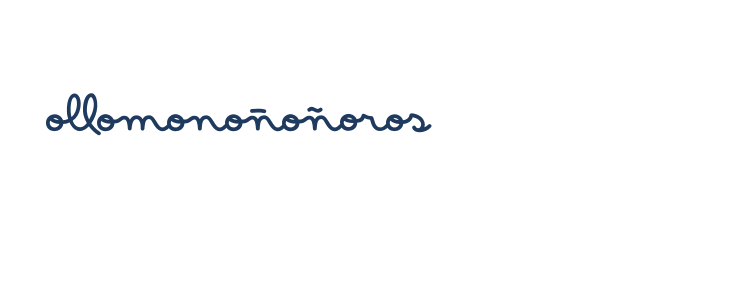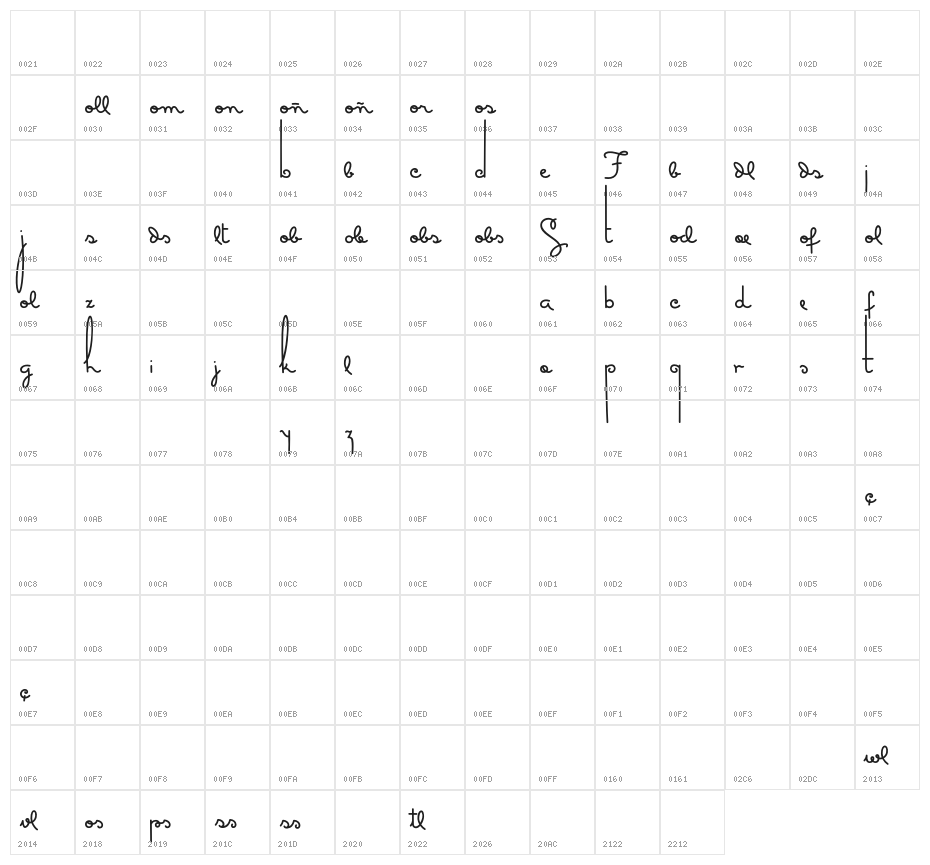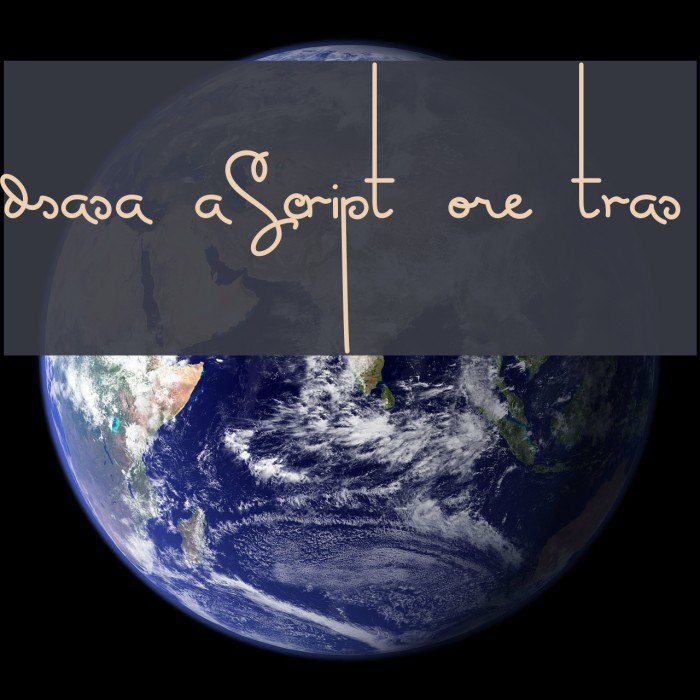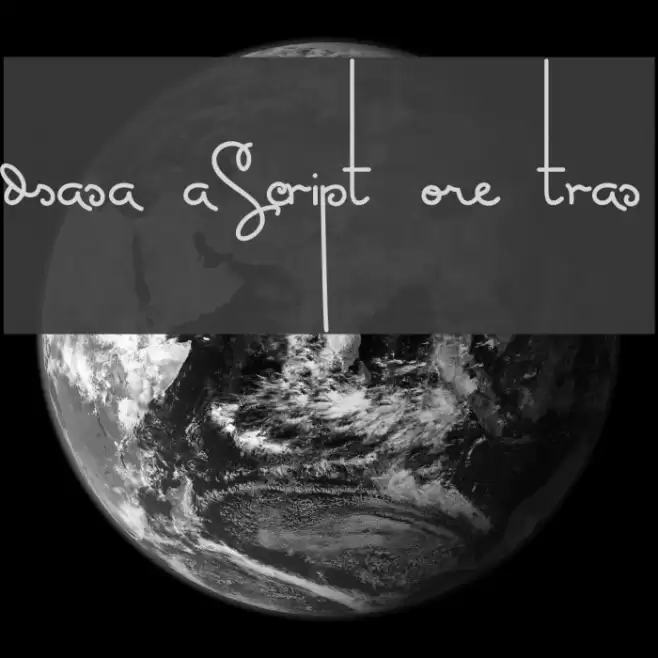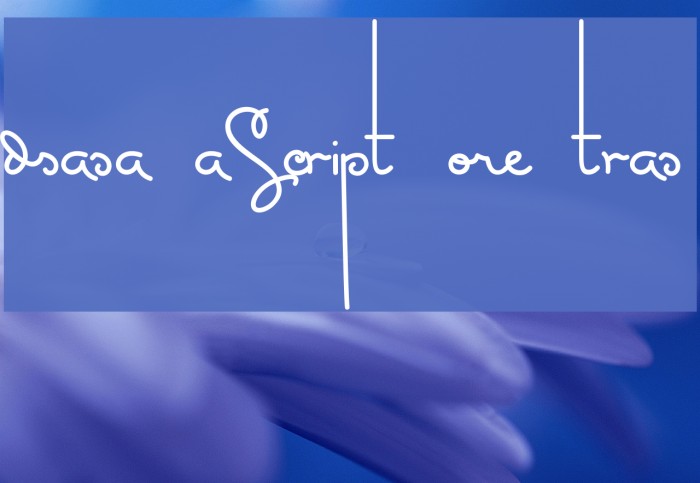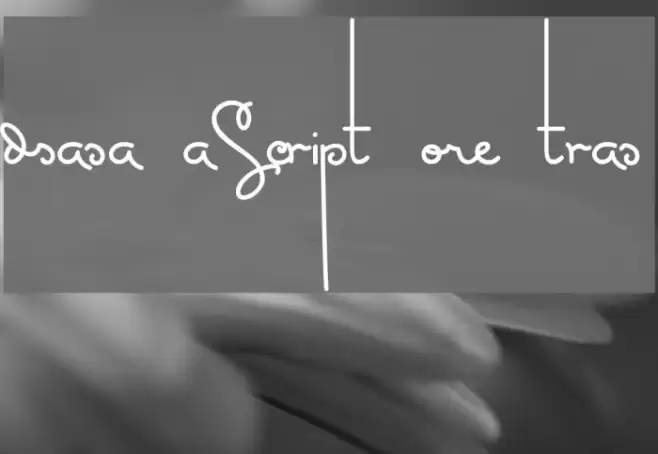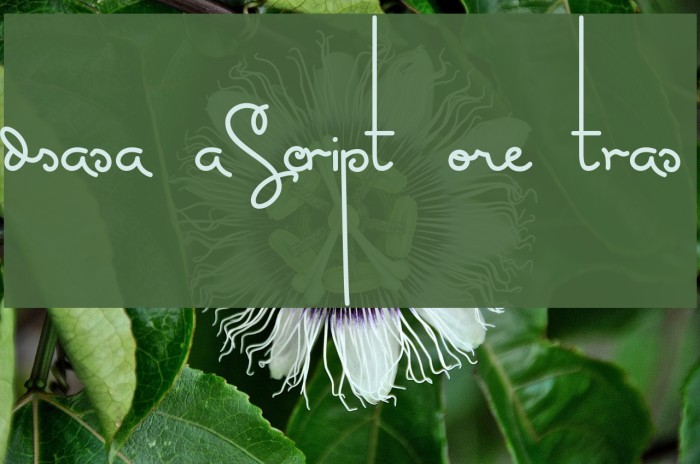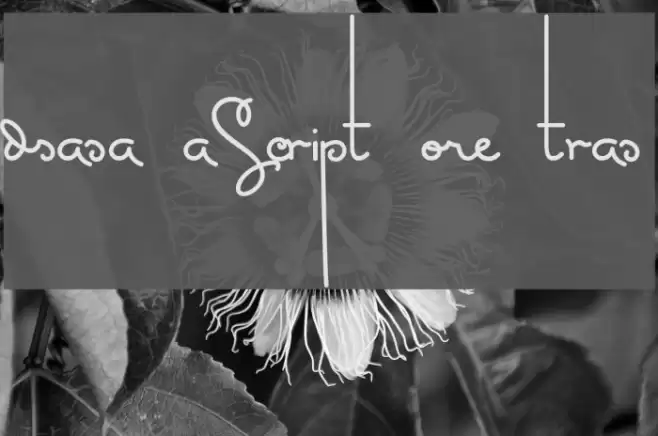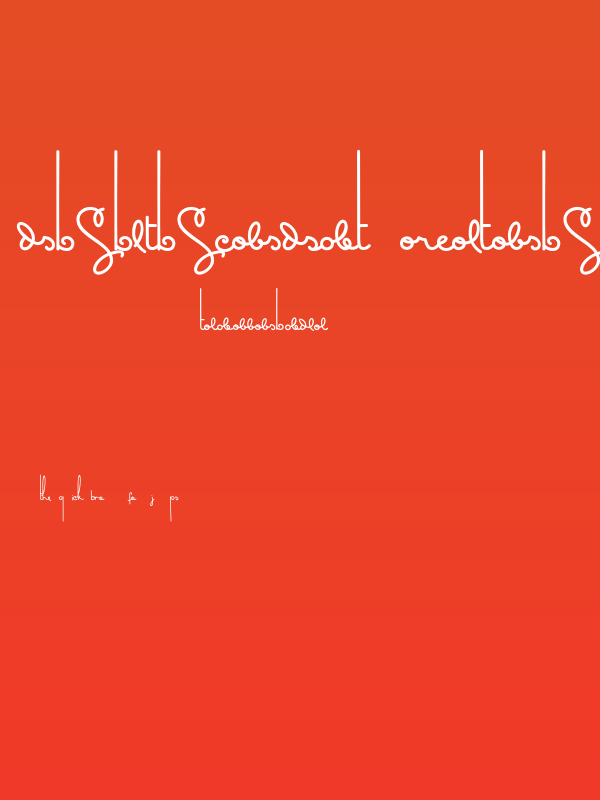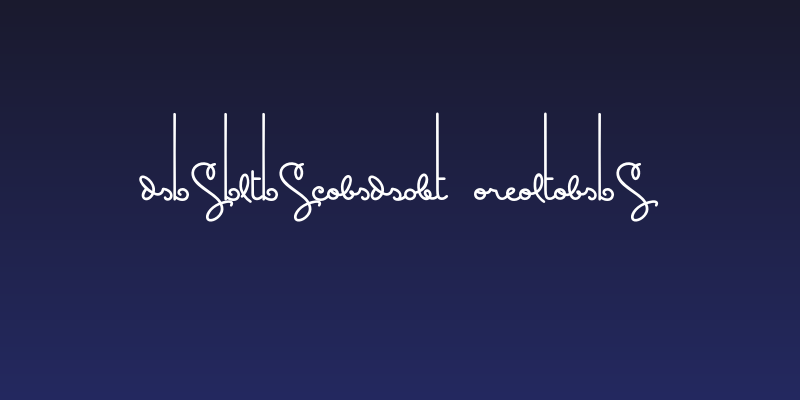
MasanaScript-5Extras Font
MasanaScript-5Extras Description
This font is a playful and whimsical script with a handwritten style. The characters are connected with smooth, flowing lines, giving it a casual and friendly appearance. The strokes are consistent in thickness, providing a uniform look across all letters. The loops and curves are prominent, adding to its charm and making it suitable for creative and informal designs. The font maintains a balance between readability and decorative flair, making it versatile for various applications.